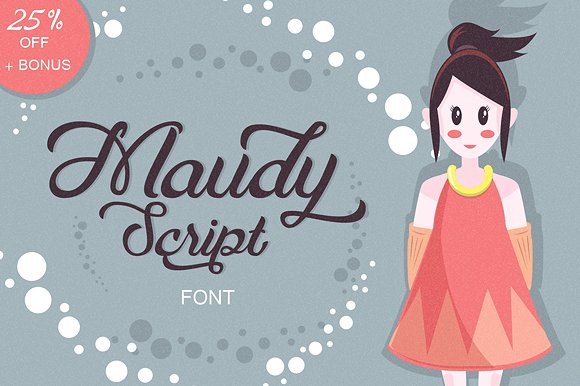
Maudy Script Font
Hello world..!. Introducing Maudy Font! Maudy is bold, modern & multipurpose typeface that natural handwriting brush lettering. Suitable for logo, packaging, cover book title, poster, t-shirt, wedding invitation, greeting card, etc.